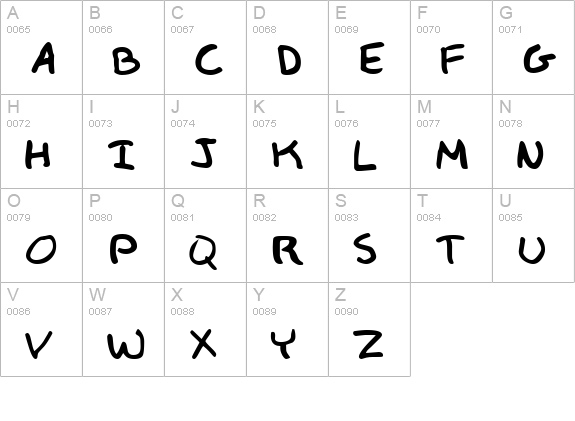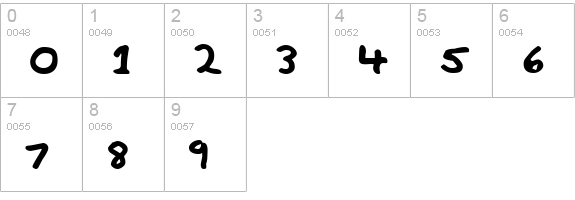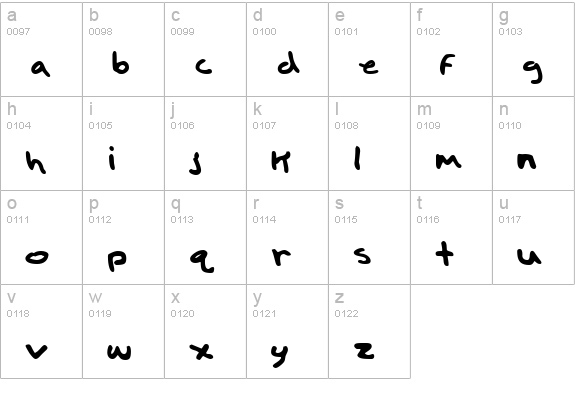
Child's Play Font Details
Child's Play font is a whimsical and playful typeface designed to bring a sense of fun and joy to your projects. With its friendly and rounded letterforms, this font is perfect for any design aimed at children or anyone young at heart. The Child's Play font is free to download at FontsMarket.com, making it easily accessible for all your creative needs. Add a touch of charm and innocence to your designs with this delightful font that captures the essence of childhood imagination. Let your creativity run wild with Child's Play font and bring a sense of wonder to your projects.